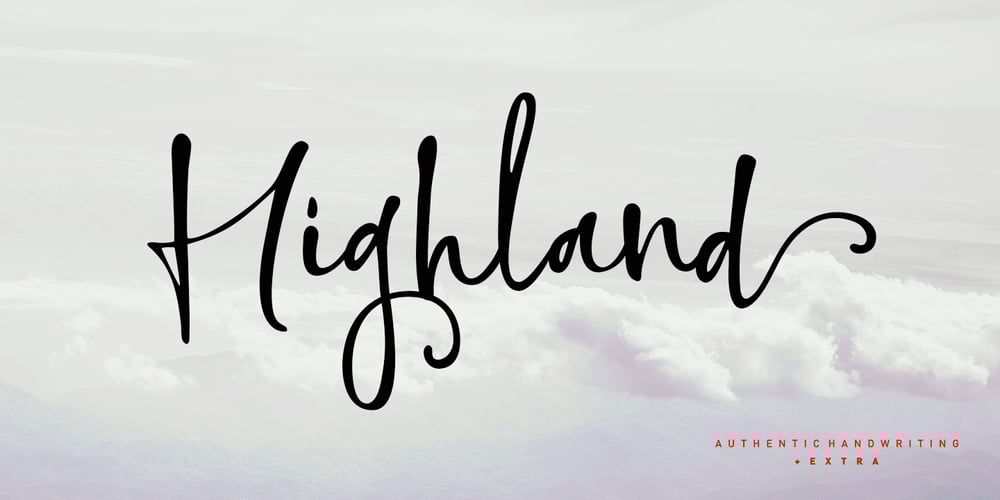
Highland Script
Highland Script font
Highland Script Font Family was designed by Ambia and published by Areatype. Highland Script contains 2 styles and family package options. Highland Script is a lovely, modern calligraphic script. It features dynamic and pretty swashes and can be used for many purpose, such as titles, signatures, logos, wedding invitations, letterhead, signage, labels, newsletters, posters, badges, etc.Highland Script features OpenType, including the initial and terminal letters, ligatures and International support for most Western languages ​​included.To activate OpenType Stylistic alternative, you need a program that supports OpenType features such as Adobe Illustrator CS, Adobe Indesign and CorelDraw X6-X7, Microsoft Word 2010 or later.How to access all of the alternate characters, using the Windows Character Map to Photoshop: https://www.youtube.com/watch?v=Go9vacoYmBwHow to access all of the alternate character using Adobe Illustrator: http://youtu.be/iptSFA7feQ0nnHow to use stylistic sets font in Microsoft Word 2010 or later versions: https://youtu.be/x1A_ilsBsGsHighland Script is PUA encoded with Unicode, which allows full access to all the extra characters without having to design special software. Mac users can use Font Book, and Windows users can use the Character Map to view and copy one additional character to paste into your text editor/favorite applications.Enjoy using Highland Script!